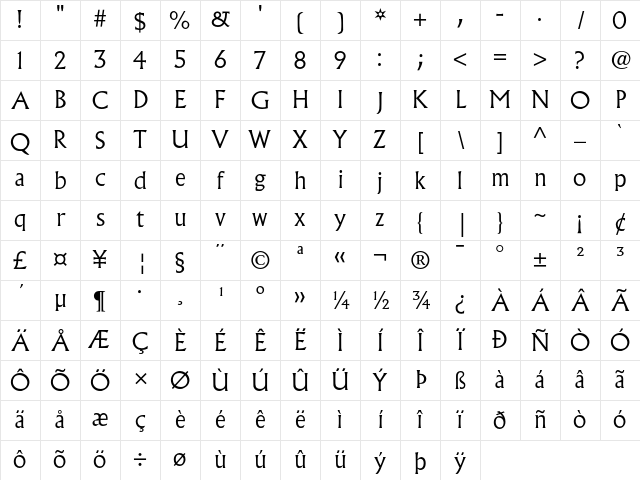
Albertus MT Light
Complete Albertus MT Light glyph index. Displaying only characters natively supported by Albertus MT Light font.
Design Context for Albertus MT
Albertus MT is a composed and adaptable typeface that performs quietly and consistently across a wide range of design contexts. Its slender proportions lend an understated elegance to any composition.